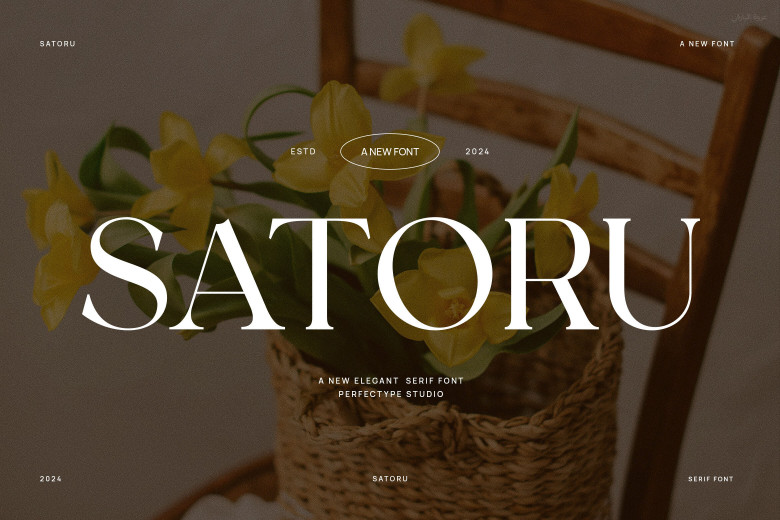
Satoru Font
Satoru is an eye-catching serif font oozing sophistication and elegance, featuring unique ligatures which give your writing extra depth, making it appear timeless and stylish. Perfect for adding an opulent touch to designs such as invitations, branding or invitations with its elegant curves and design; Satoru brings elegance into any design project!
Satoru Serif Font